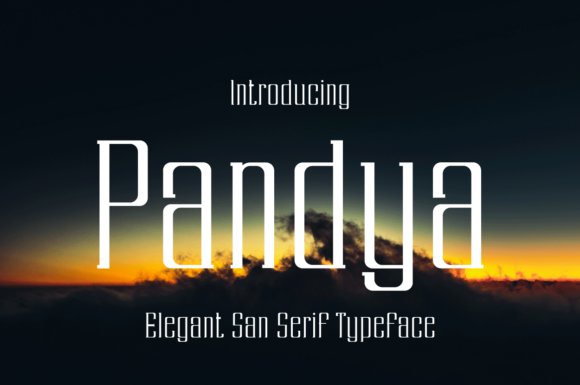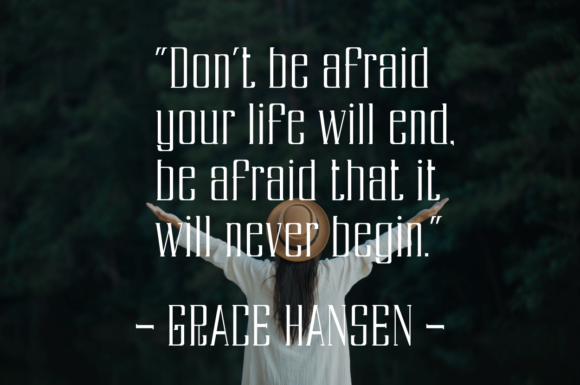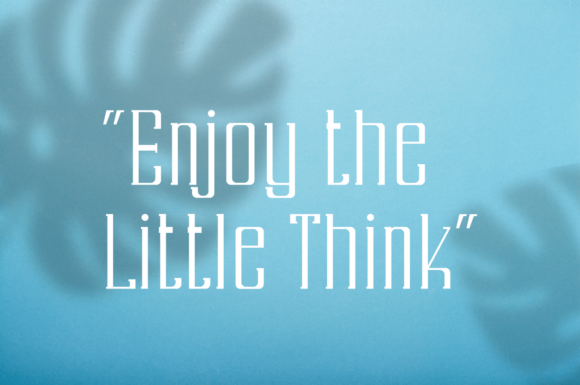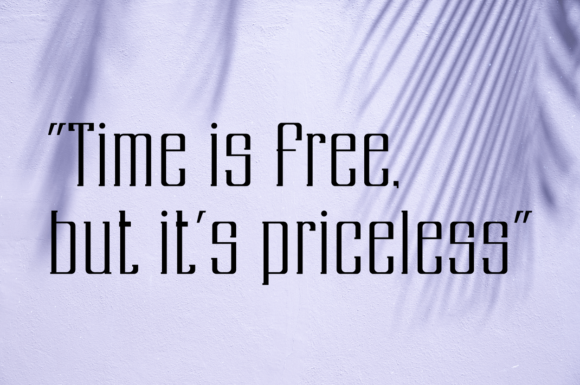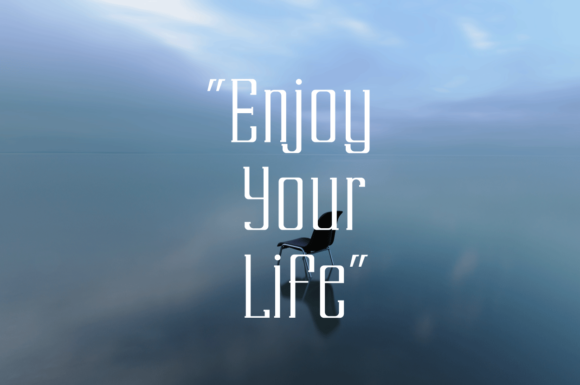
Pandya Font
PANDYA FONT SPECIMEN
Pandya is a cool, thin lettered and squared slab serif font. This font is ideal for writing web designs, business cards, or pretty much anything else that requires a casual, fun touch.